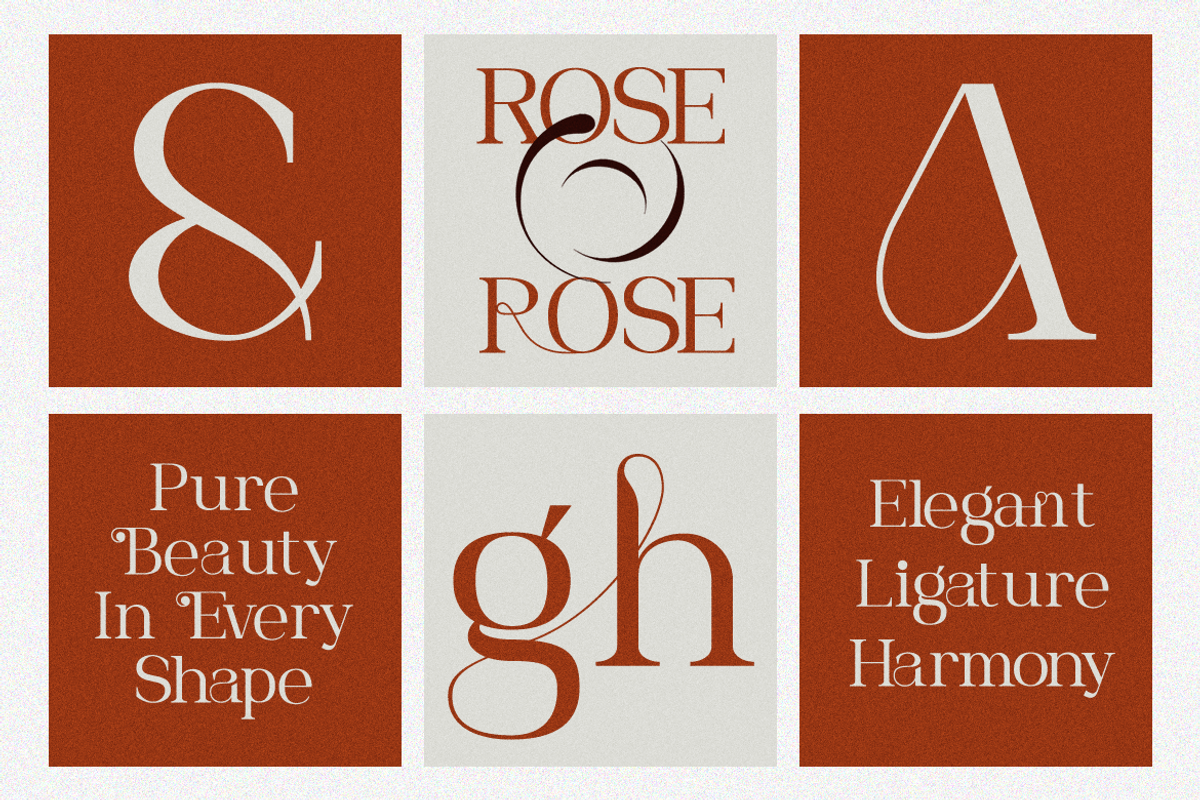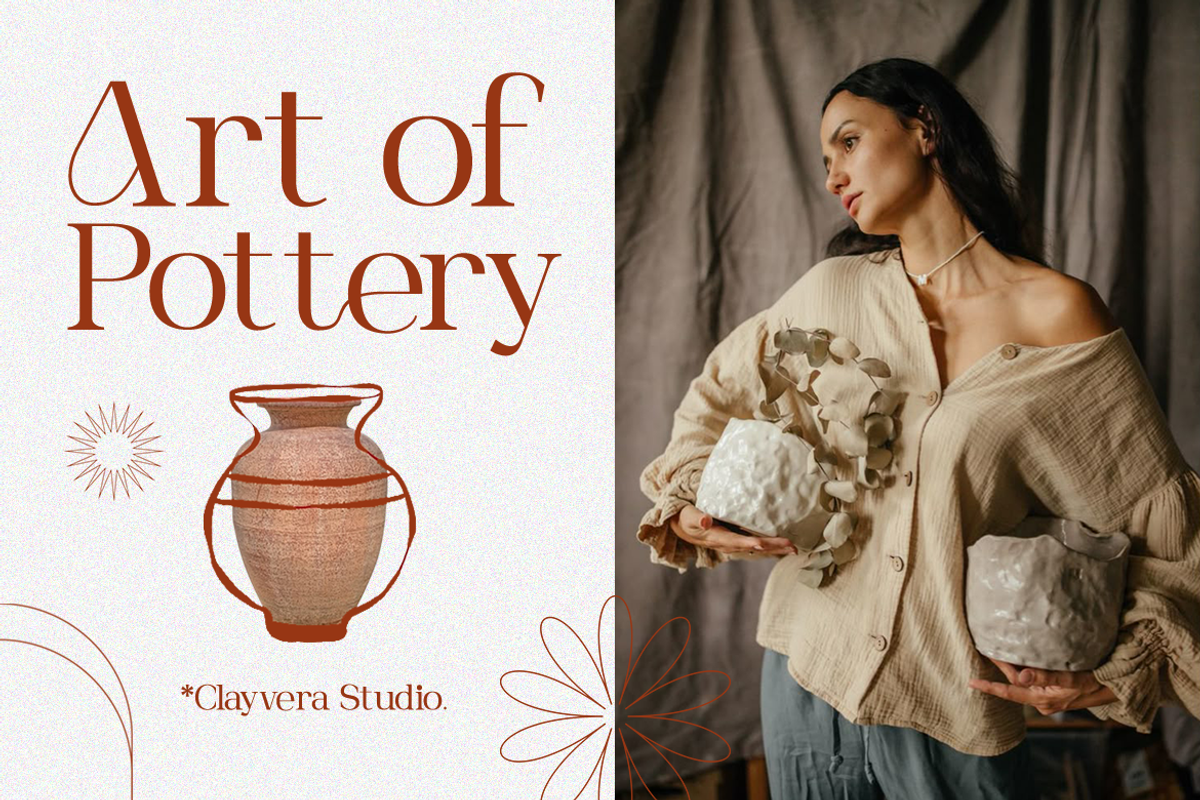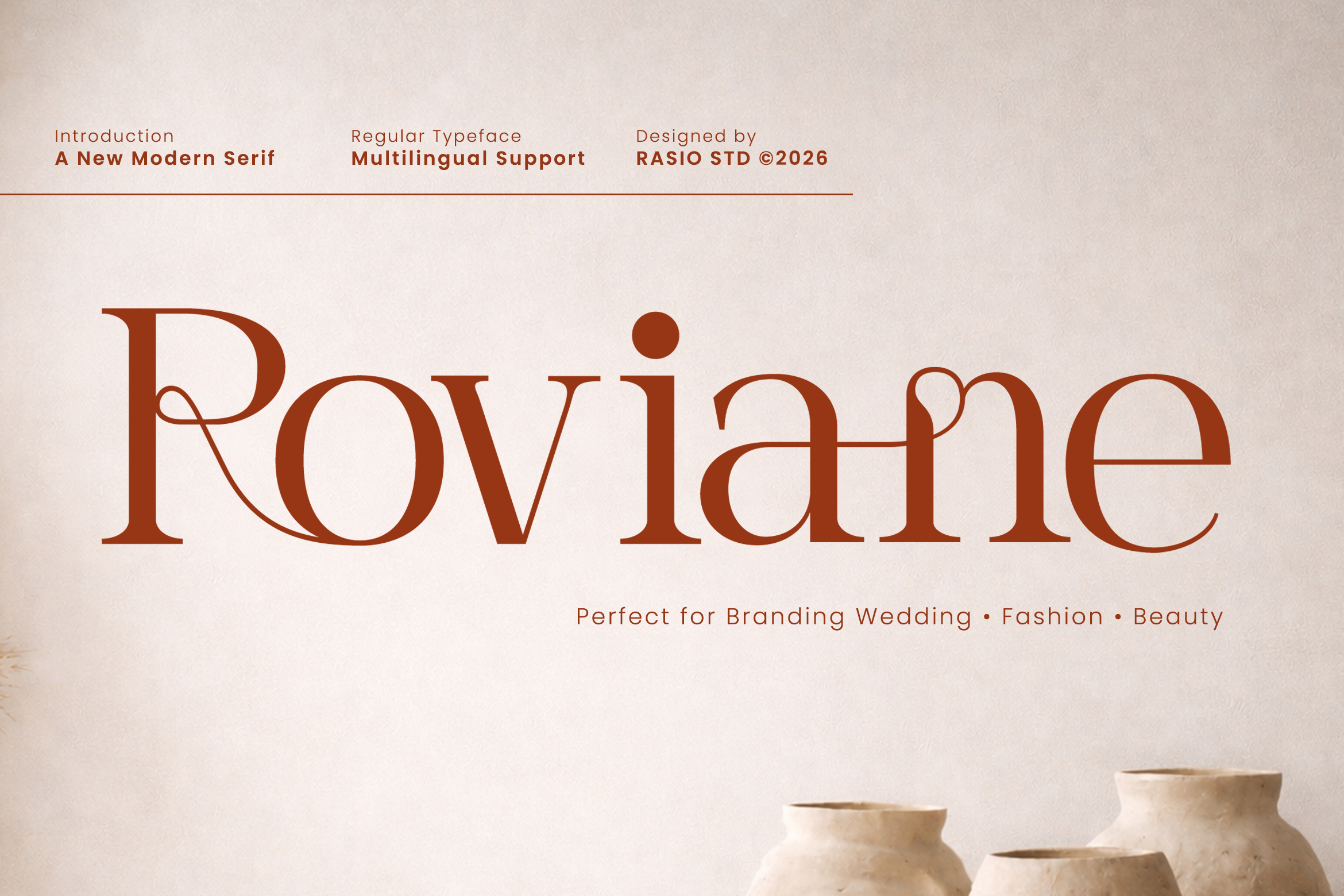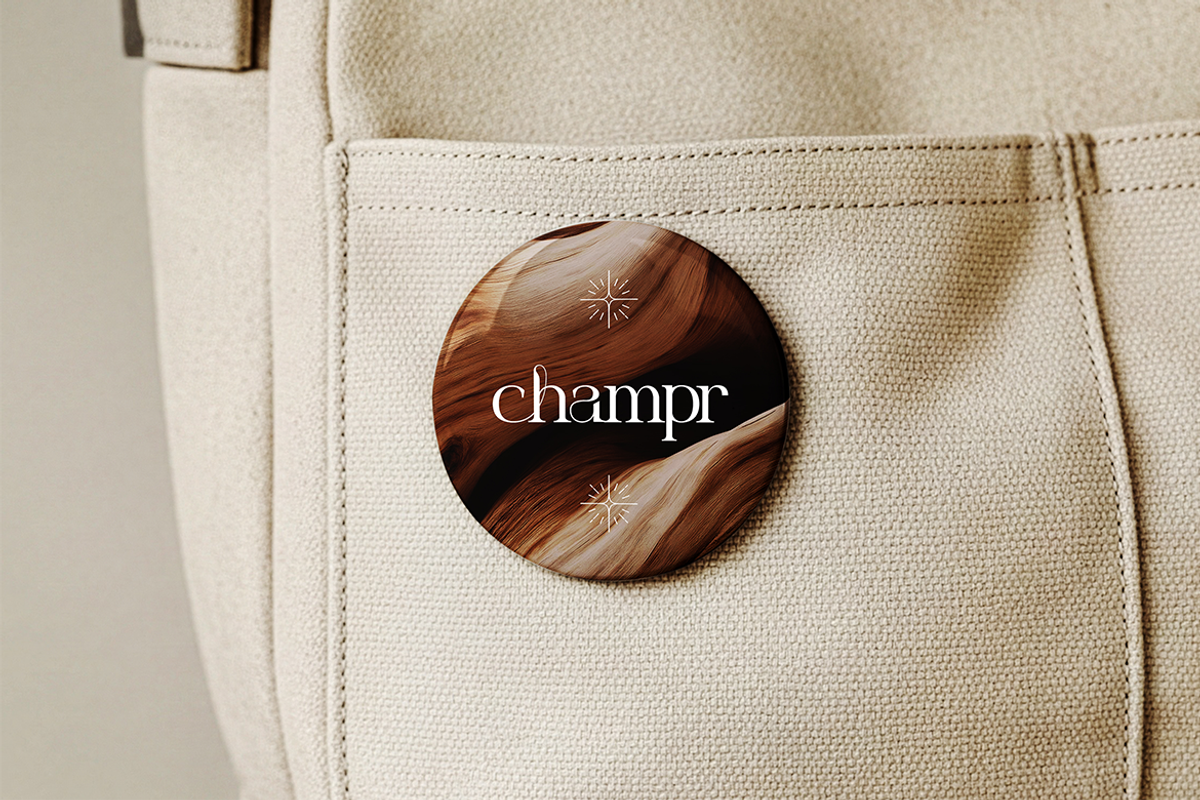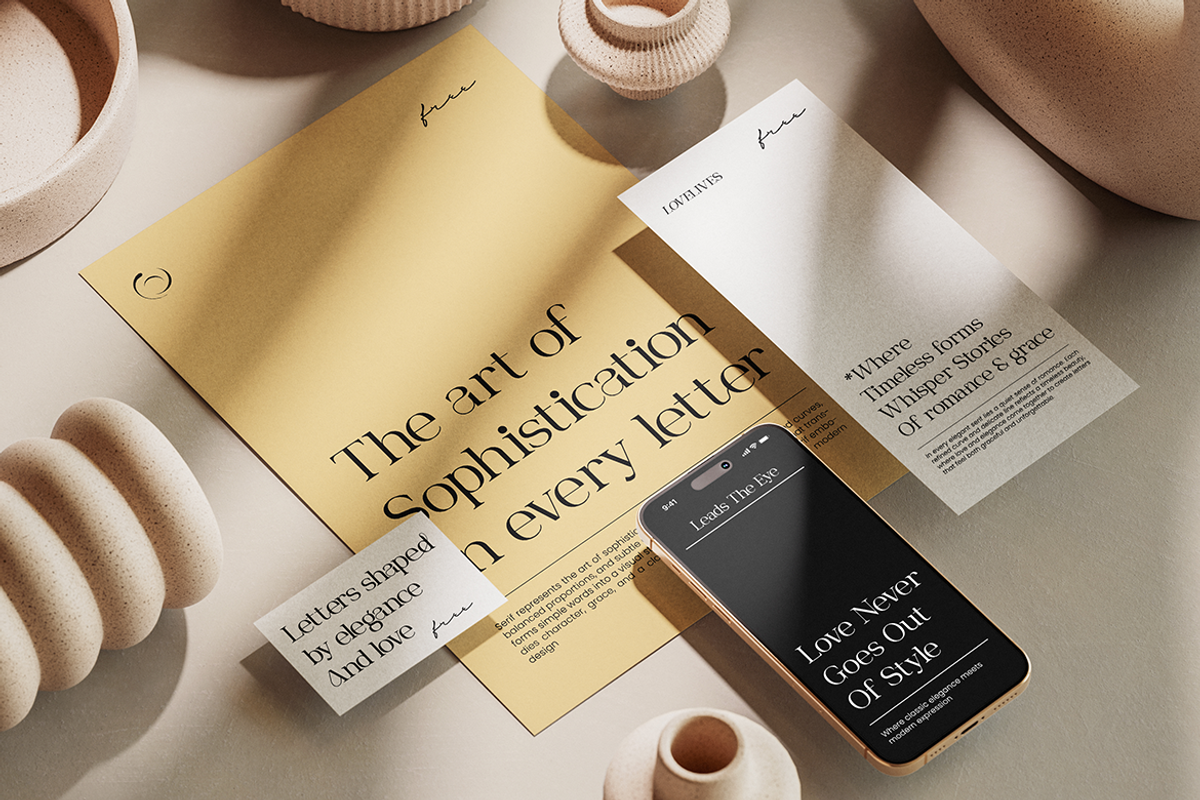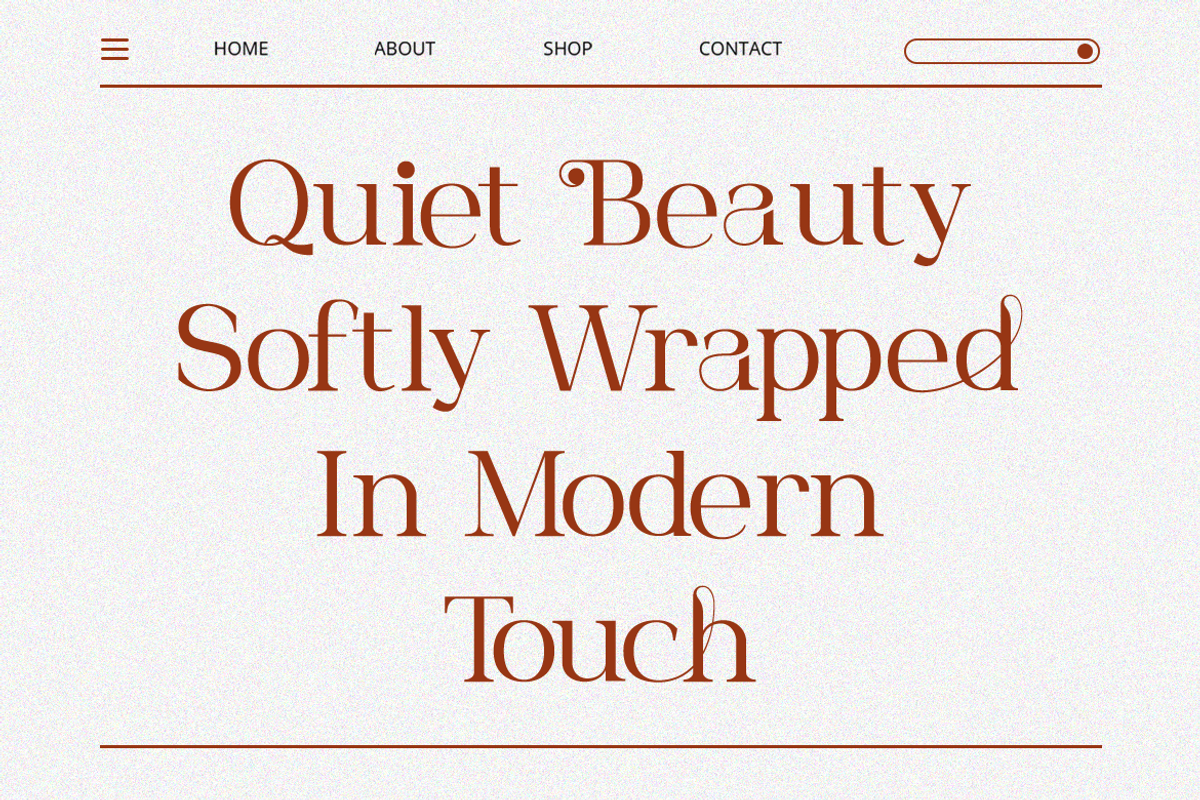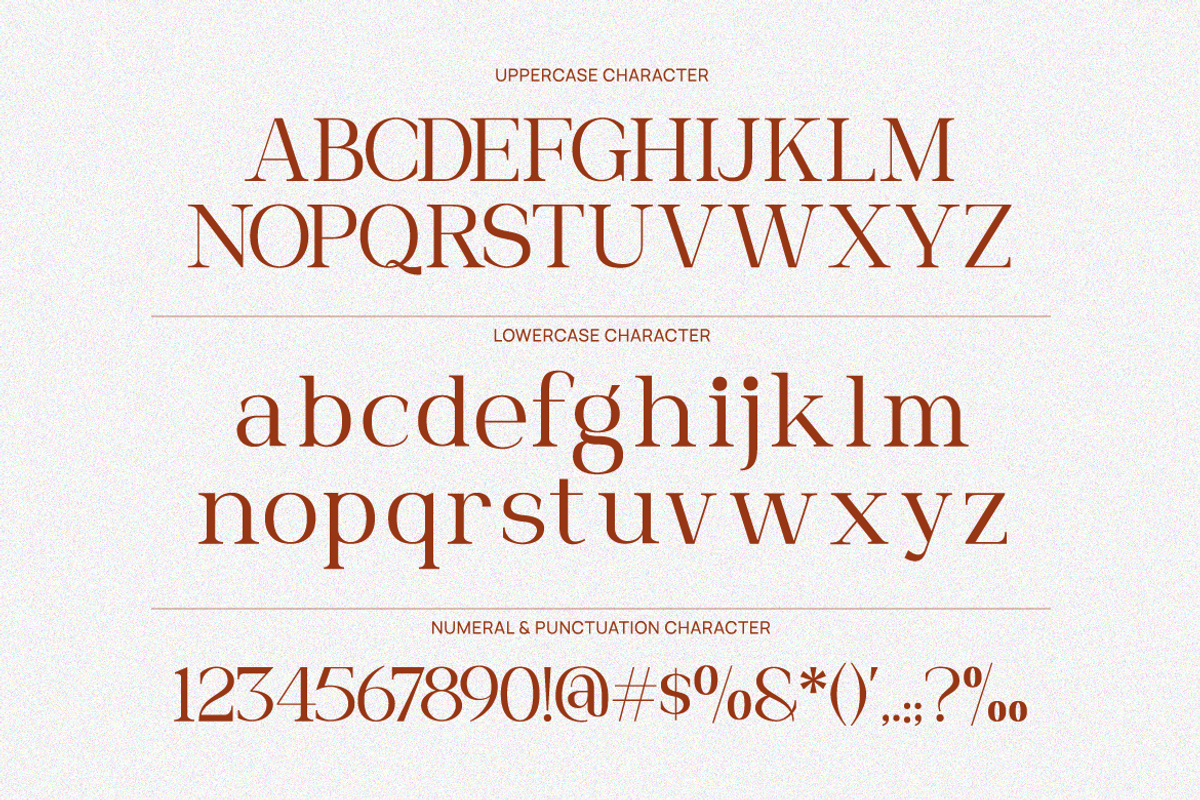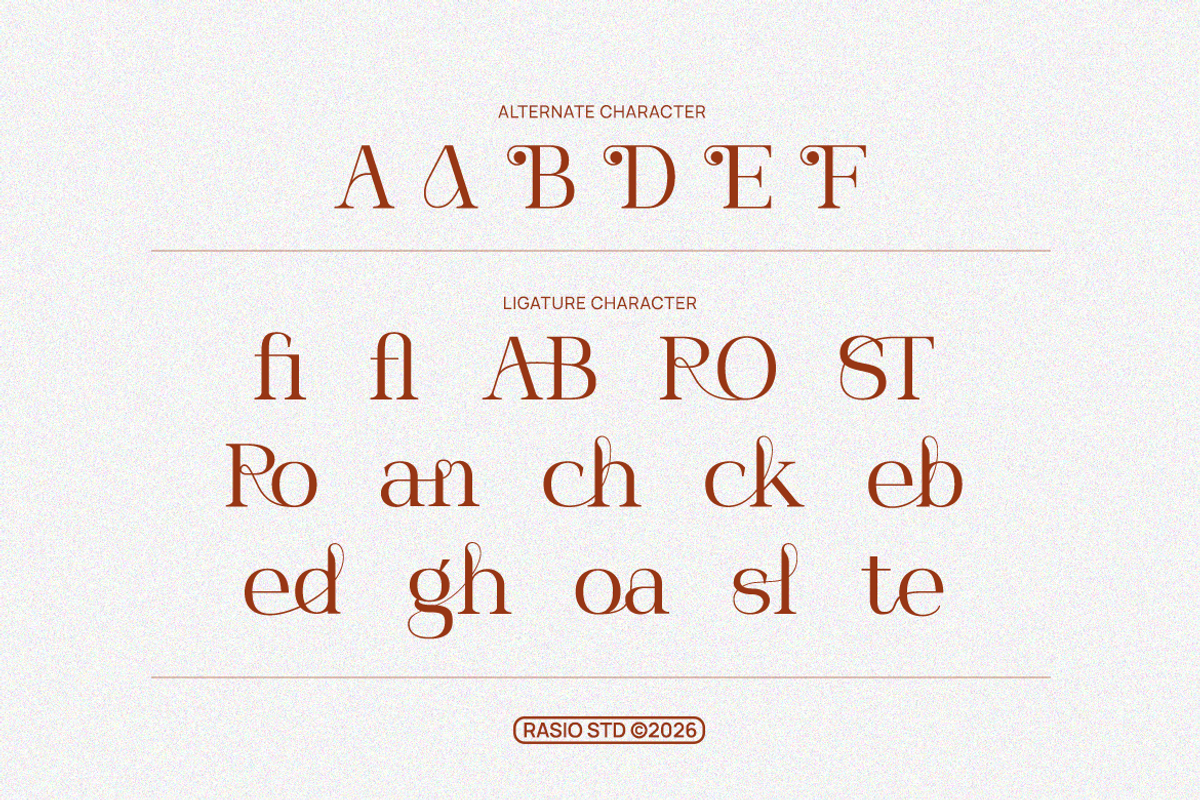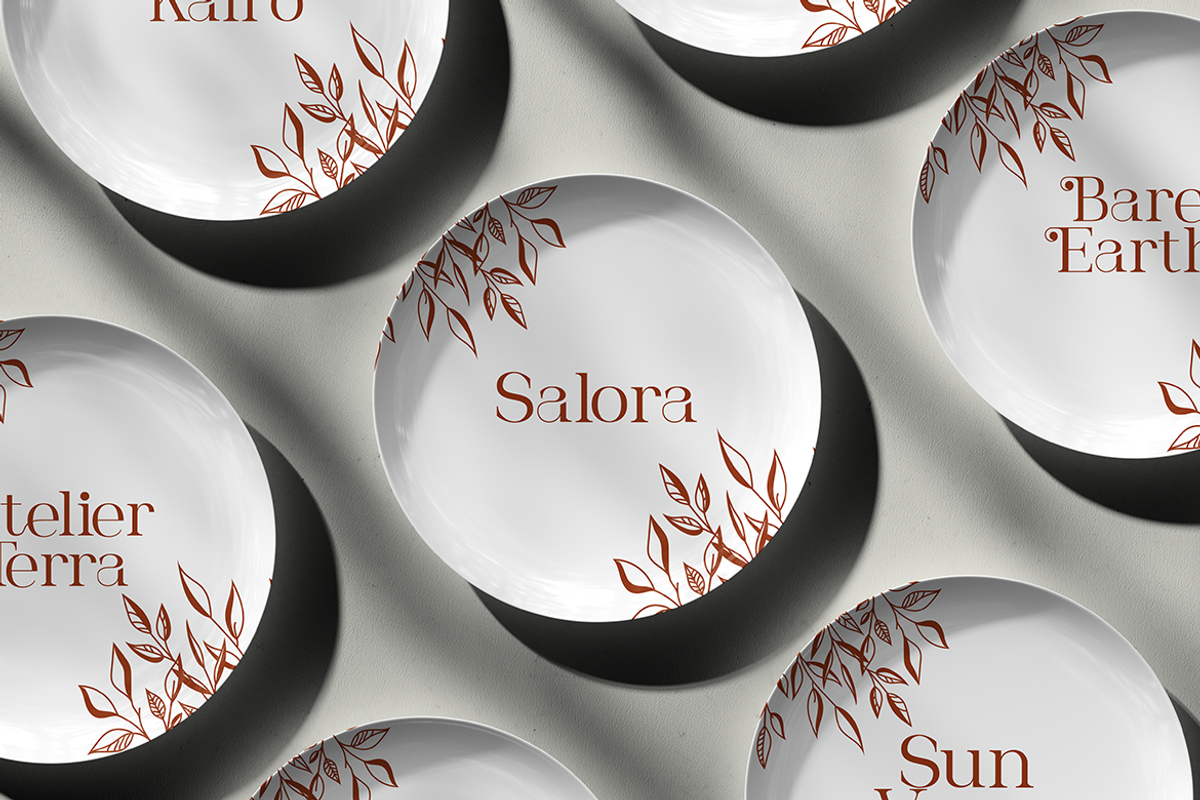
Roviane Modern Serif Font
Roviane showcases a refined modern serif style with graceful curves and delicate contrast. The letterforms feature smooth transitions, subtle high-contrast strokes, and distinctive ligature-inspired details that add a sense of elegance and sophistication. Its clean structure is balanced with artistic flourishes, creating a timeless aesthetic with a contemporary touch. Includes uppercase, lowercase, numerals, punctuation, and multilingual support.
Relevance and Use Cases is perfect for branding identity, wedding invitations, fashion editorials, beauty product packaging, luxury logos, magazine layouts, social media design, typography posters, boutique branding, cosmetic labels, photography watermarks, and elegant visual storytelling projects.
- Modern serif design with elegant high-contrast strokes
- Unique ligature details that add a graceful character
- Soft curved serifs for a refined editorial feel
- Balanced proportions for clear display readability
- Carefully spaced letterforms for a polished look
- Luxury brand identities seeking an elegant and refined visual tone
- Wedding invitations and romantic stationery design
- Editorial magazines and fashion lookbook layouts
- Beauty, skincare, and boutique product packaging
- Social media branding and stylish marketing templates
Bring timeless elegance to your design with Roviane